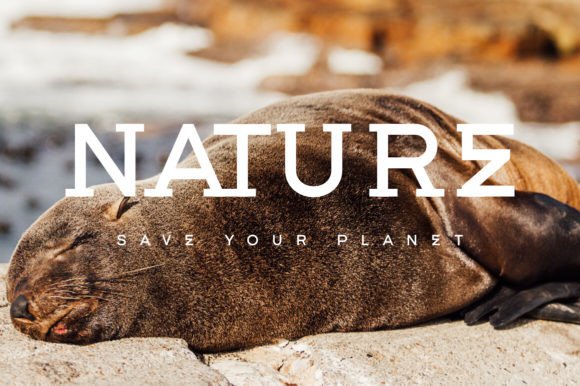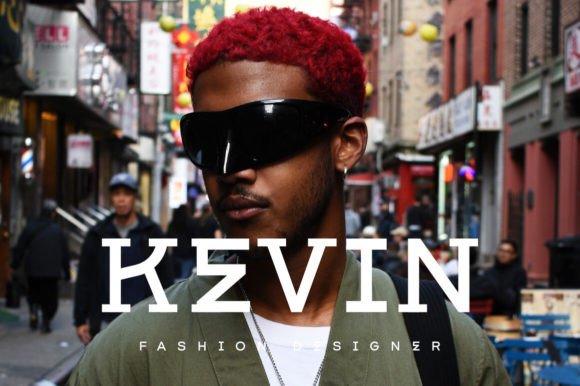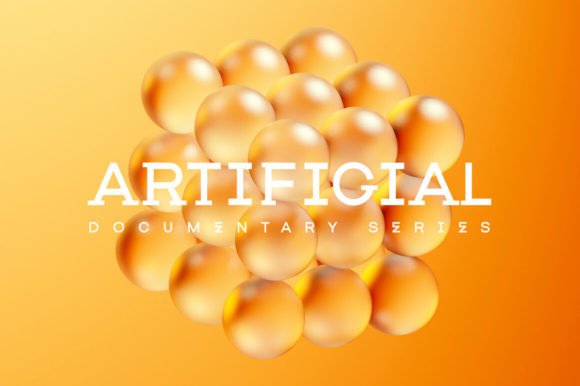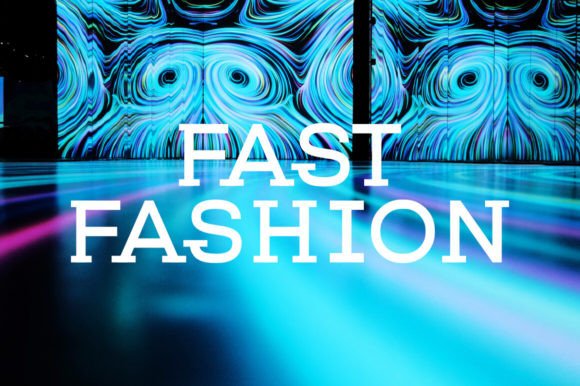
Introduction to Getboreg Font
As a designer, there’s nothing quite like the thrill of discovering a new font that sparks your creativity. For me, it was the moment I stumbled upon the Getboreg Font, a linguistic journey through time and technology that left me breathless. Its characters tell a story that spans centuries, each curve and contour a reflection of the evolution of written communication. I was captivated by the intricate details and the way it seemed to come alive on the page.
What makes the Getboreg Font truly special is its ability to transcend mere letters and become a visual legacy. With its high-quality design and transparent background, it’s the perfect addition to any creative project. And the best part? It’s available for free download, making it an invaluable resource for designers of all levels.
Whether you’re working on a design project or simply looking for a unique way to express yourself, the Getboreg Font is sure to leave an indelible mark. Its versatility and timeless charm make it a valuable asset for any designer, and I’m excited to share its story with you.
Key Features of Getboreg Font
- High-quality design: The Getboreg Font is designed to provide a unique and creative touch to your projects, making it a valuable design resource.
- Transparent background: This font features a transparent background, allowing you to easily overlay it on any image or design without any distractions.
- High-resolution design: The Getboreg Font is designed at a high resolution of 300 DPI, making it suitable for both digital and print-based creative projects.
- Unique typography: The font’s unique typography and creative flair make it an ideal choice for designers looking to add a touch of elegance and sophistication to their designs.
- Perfect for creative projects: The Getboreg Font is an excellent choice for designers working on creative projects, including graphic design, branding, and digital art.
Honest Review: Getboreg Font
I recently stumbled upon the Getboreg Font and was excited to give it a try. As a designer, I’m always on the lookout for high-quality design resources to elevate my creative projects.
What works well with the Getboreg Font is its versatility. It’s available for free download, making it a great resource for designers on a budget. The font itself is quite unique, with a bold and modern feel that can be used in a variety of contexts.
- ✨ Unique design aesthetic
- ✨ Transparent background option for easy use
However, there are a few limitations to consider. The font may not be suitable for all types of projects, and the download process can be a bit clunky at times.
- ⚠️ Limited project suitability
Overall, I’d say the Getboreg Font is a solid addition to any designer’s toolkit. While it may not be perfect, its unique design aesthetic and free download make it a great resource for creative projects.
Designing with Getboreg Font
Getboreg Font is a high-quality design resource suitable for creative projects. It features a unique and elegant style that can elevate your designs. You can use it in various design applications, including:
Tips for Getting the Most Out of Getboreg Font
For optimal results, use Getboreg Font with a transparent background to allow the text to stand out. Experiment with different font sizes and styles to create visually appealing designs. You can also pair it with other design elements, such as images and graphics, to add depth and interest.
Getboreg Font is suitable for a variety of creative projects, including:
- Wedding invitation design
Yes, the Getboreg Font supports transparent backgrounds, making it ideal for use in creative projects that require a clear and high-quality font. Simply use the font in conjunction with a design tool that supports transparent backgrounds, such as Adobe Illustrator or Canva.